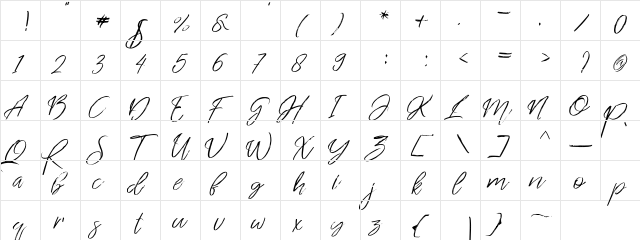
Swimsweet Regular
Design Context for Swimsweet Typeface
Swimsweet is a composed and adaptable typeface that performs quietly and consistently across a wide range of design contexts.